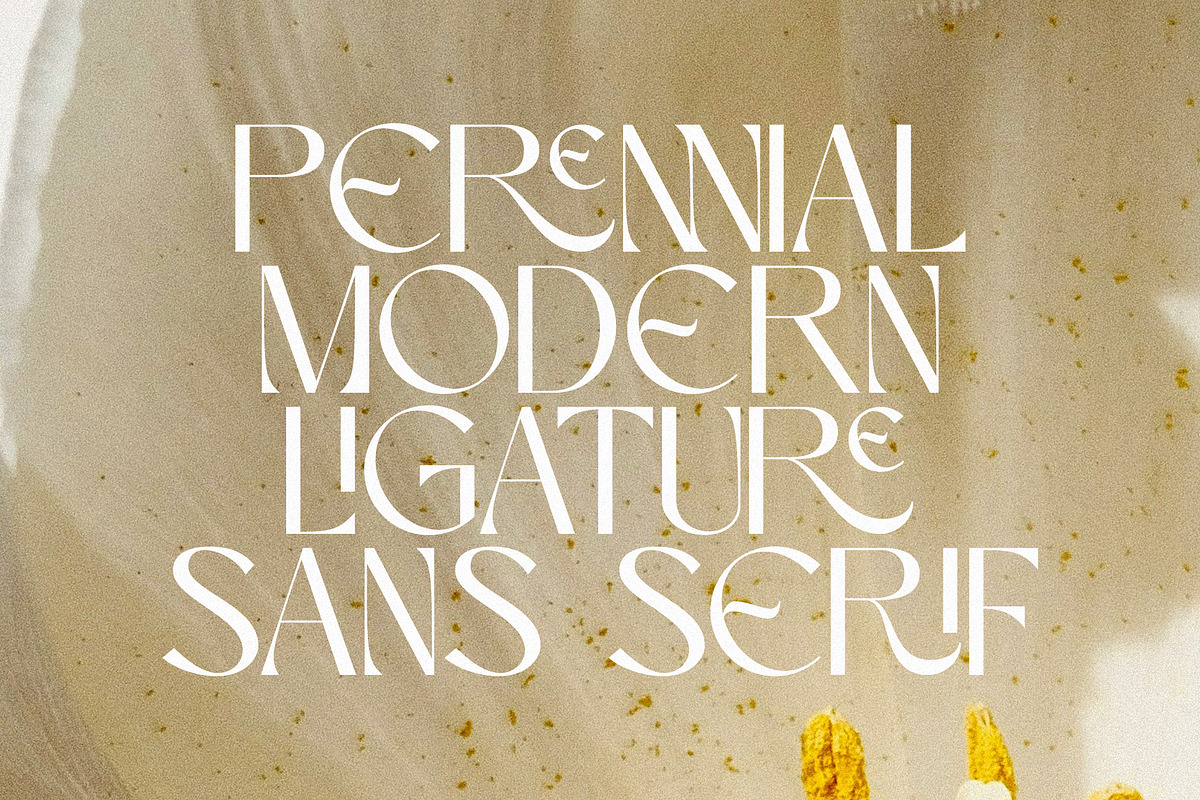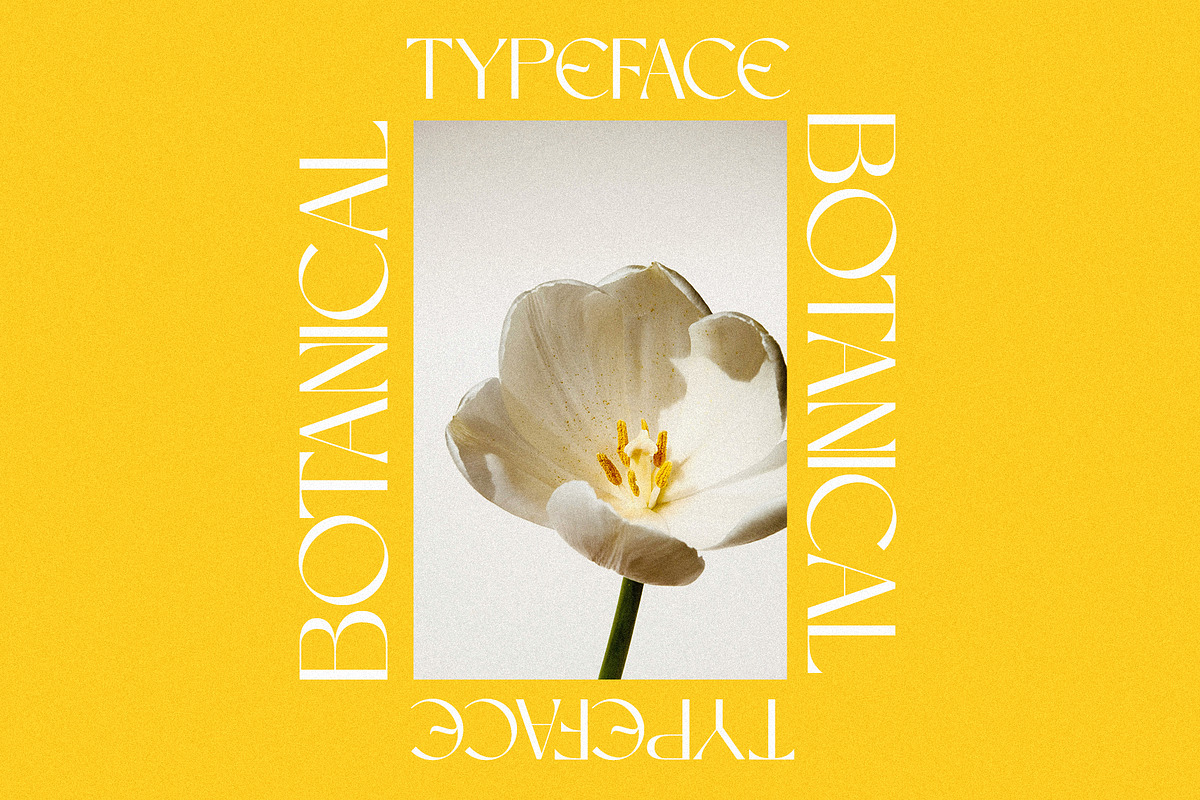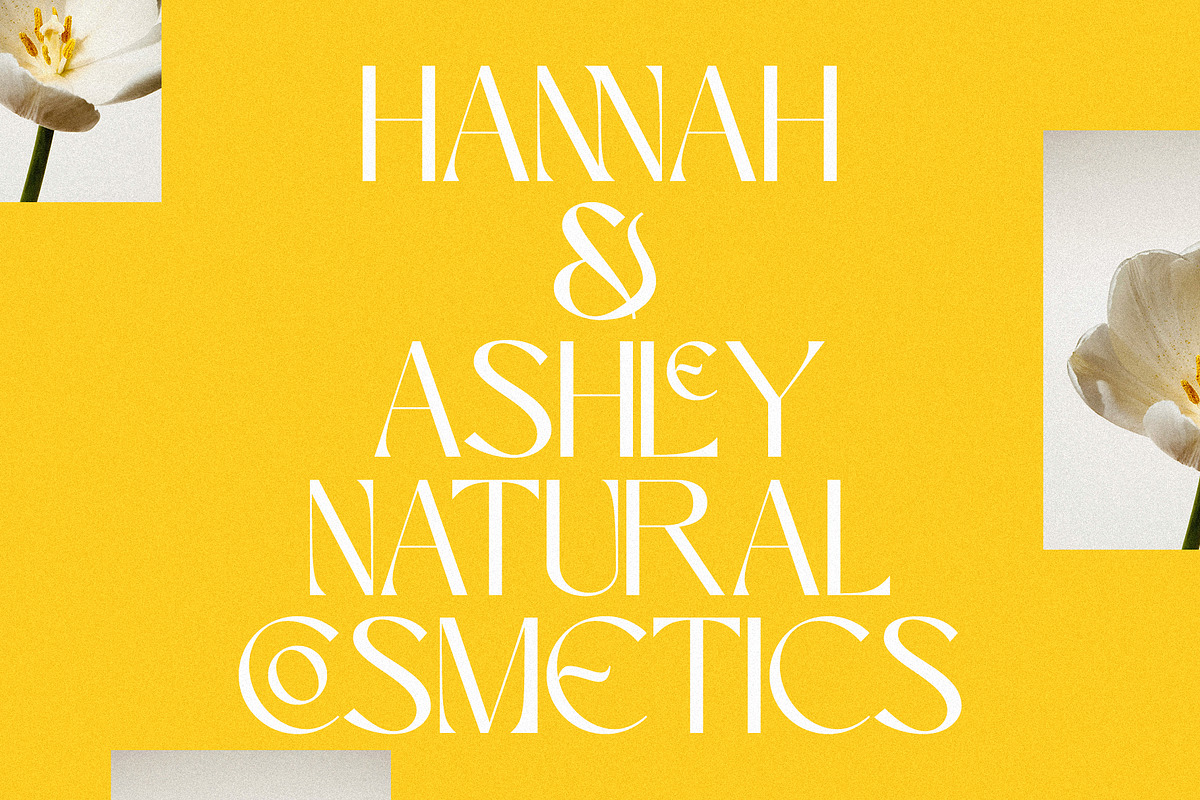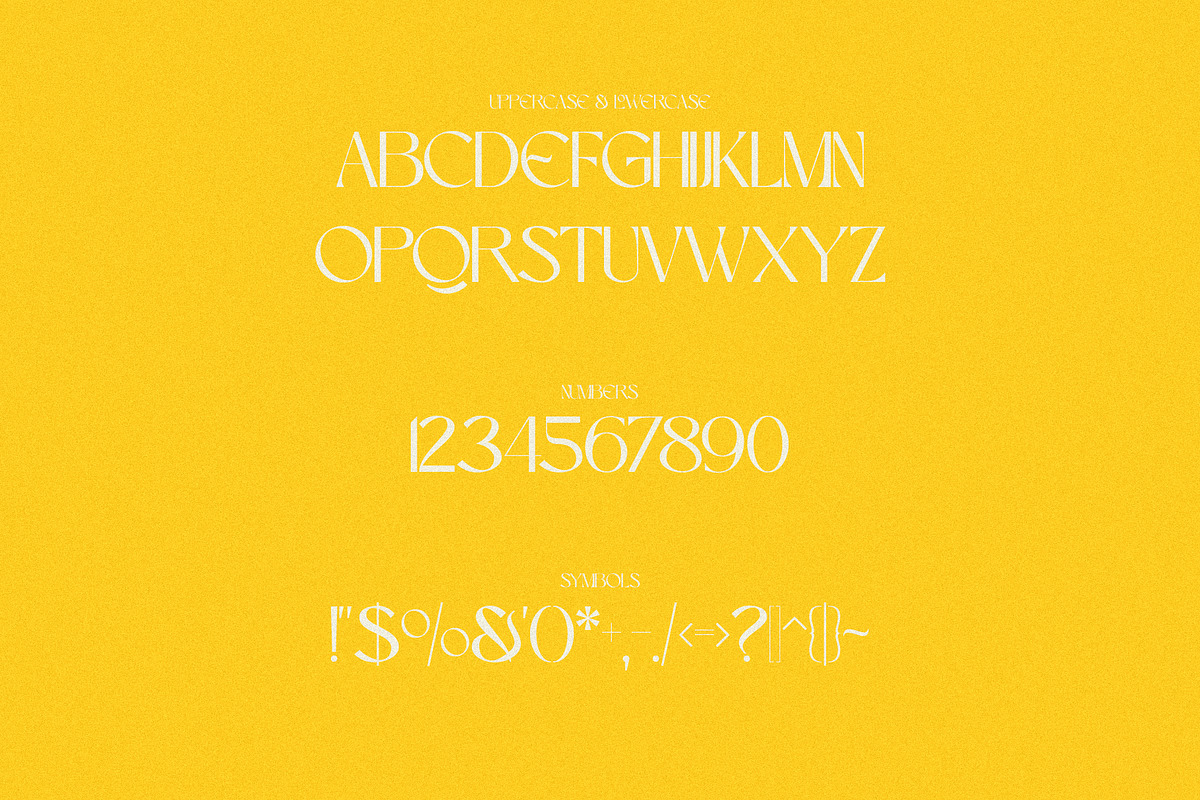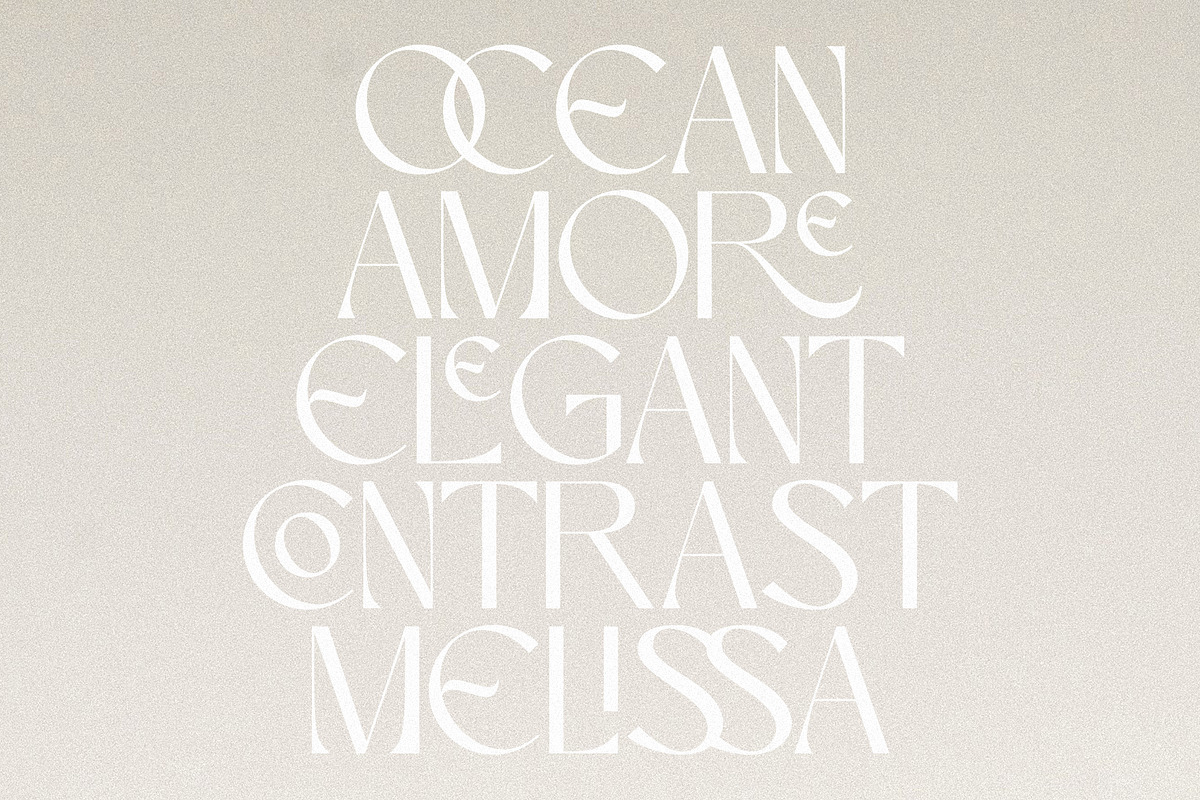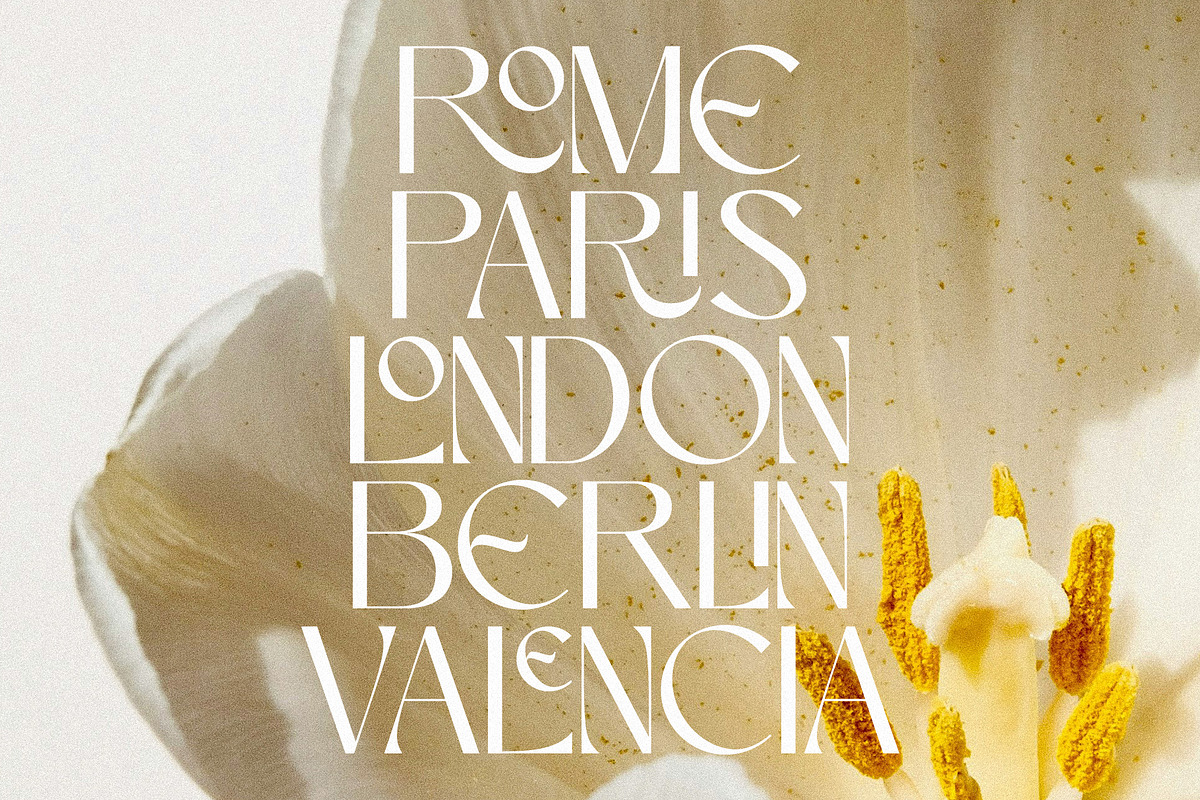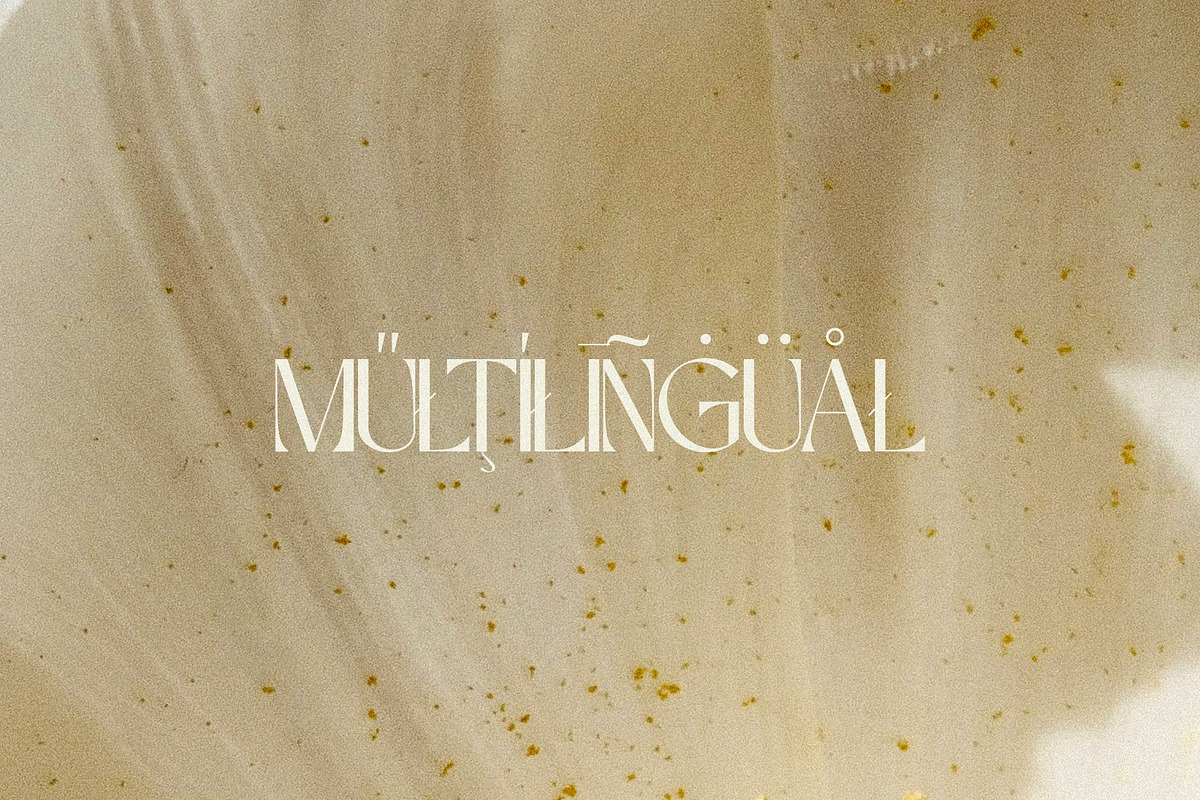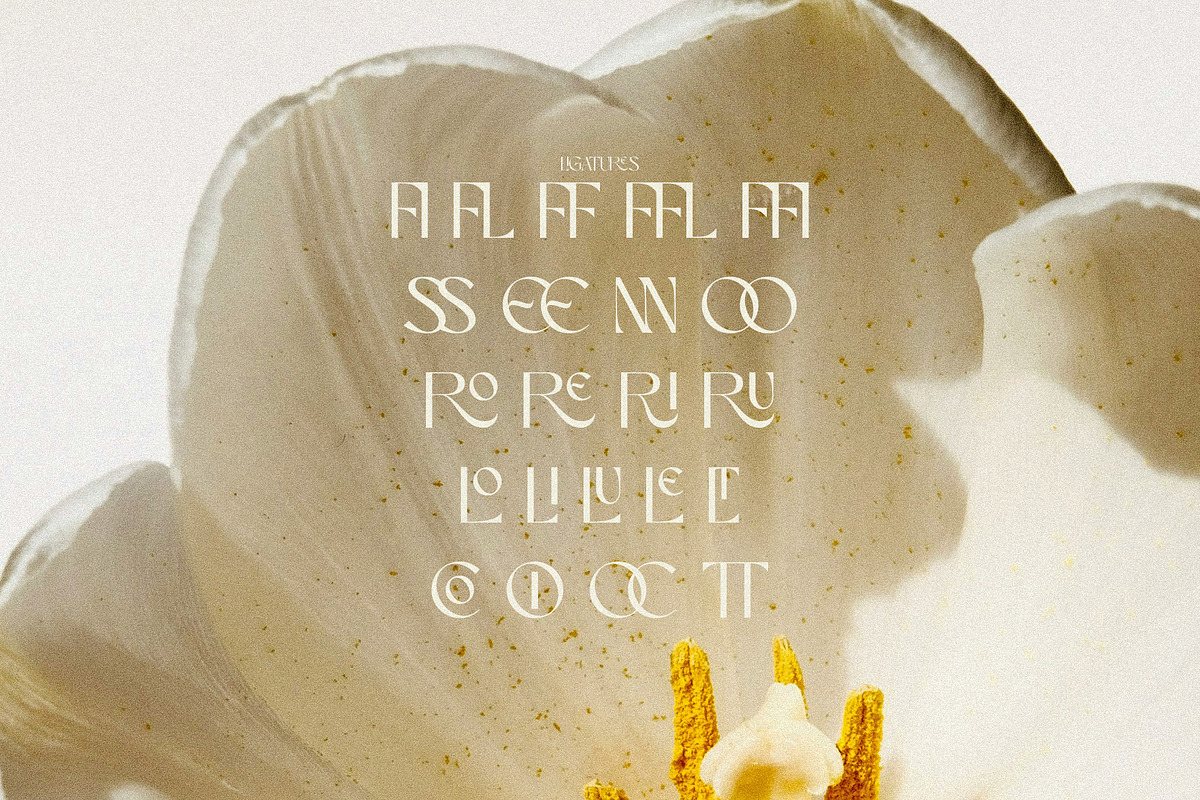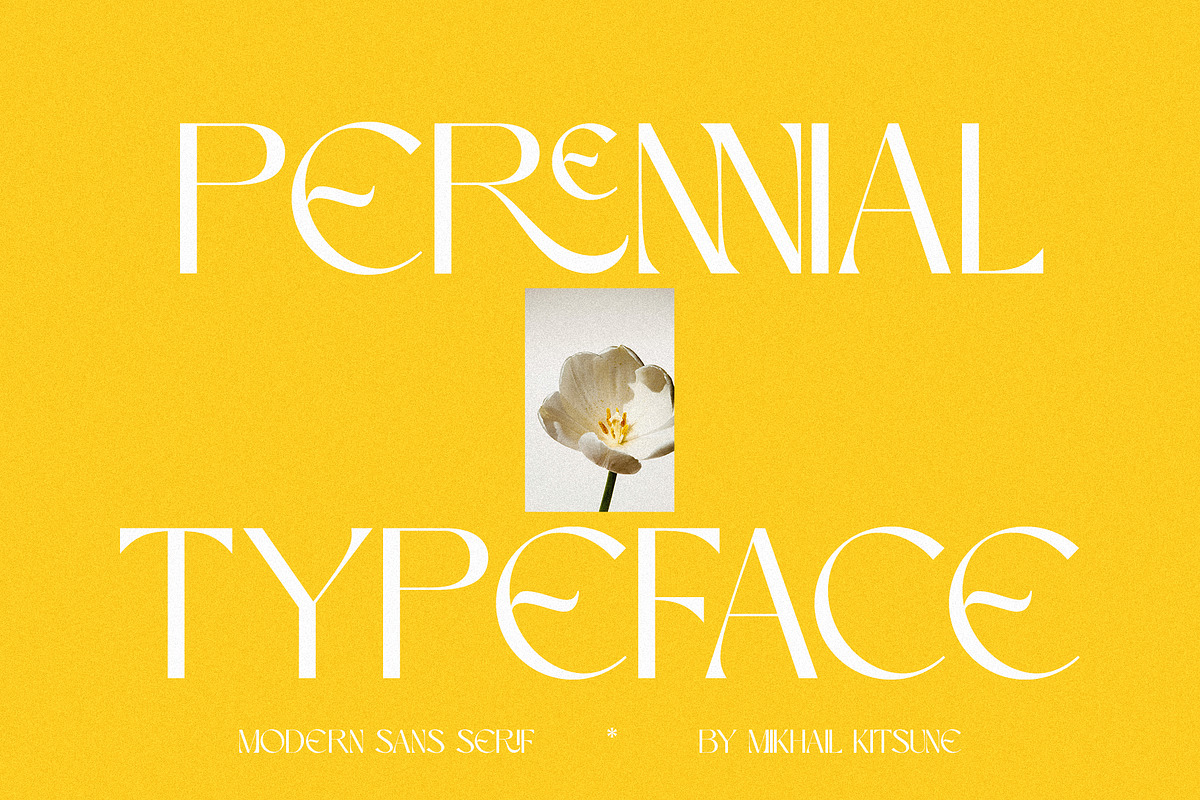
Perennial - Elegant & Ligature Sans
Perennial is a refined ligature sans serif that blends modern minimalism with timeless elegance. Designed with fluid connections and thoughtfully crafted ligatures, it brings a graceful rhythm to every word while maintaining the clarity and versatility of a clean sans serif. Its balanced proportions and subtle curves create approachable tone - perfect for branding, editorial layouts, luxury packaging, wedding stationery, and high-end digital design. The ligatures add a distinctive, seamless flow that elevates headlines and logotypes without compromising readability.
- Basic Ligatures
- Stylistic Ligatures